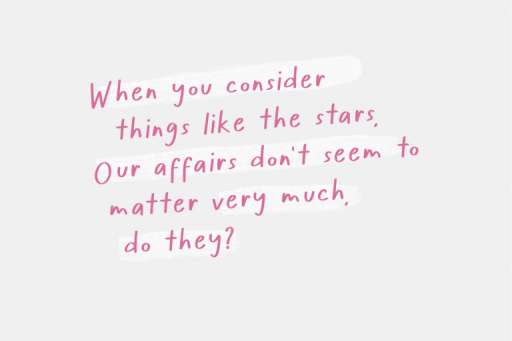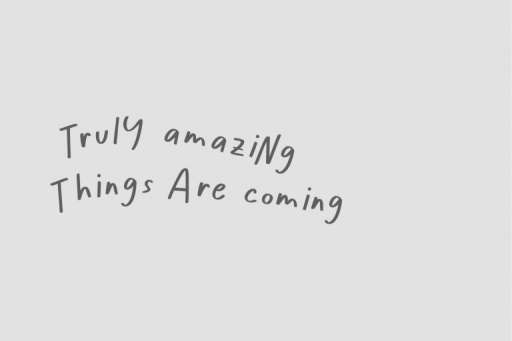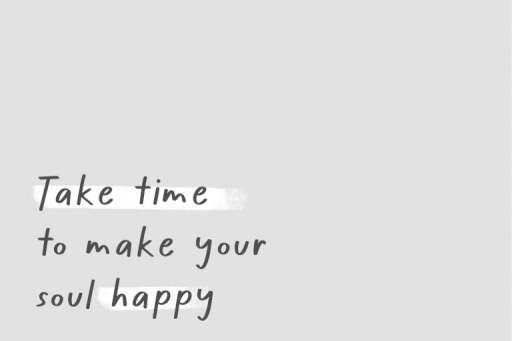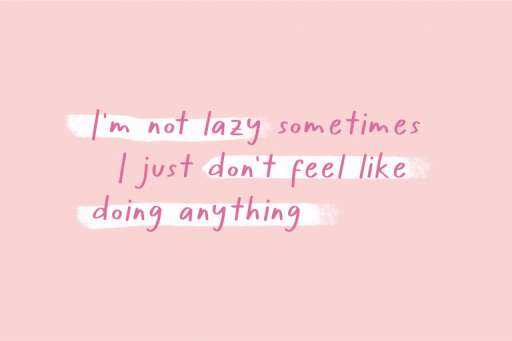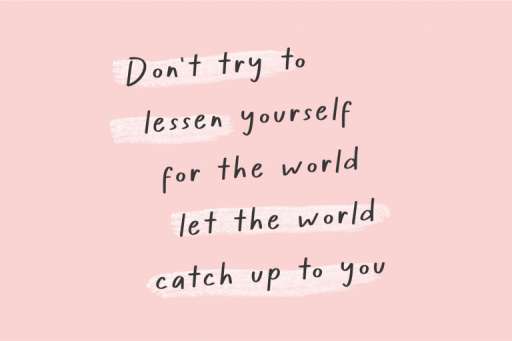
Lillybonie – Marker Handwritten Font from Jimtype Studio
Lillybonie is a Handwritten marker font with a basic uppercase, lowercase, number, and punctuation font set. Lillybonie is perfect for product packaging, quotes, branding project, magazine, social media, weddings, or just used to express words above the background.